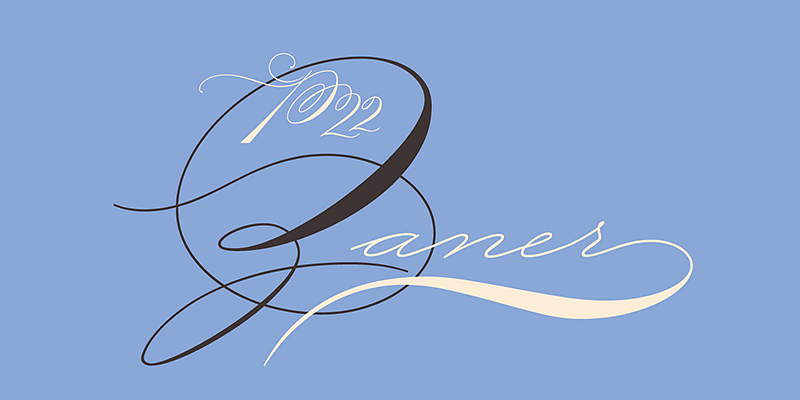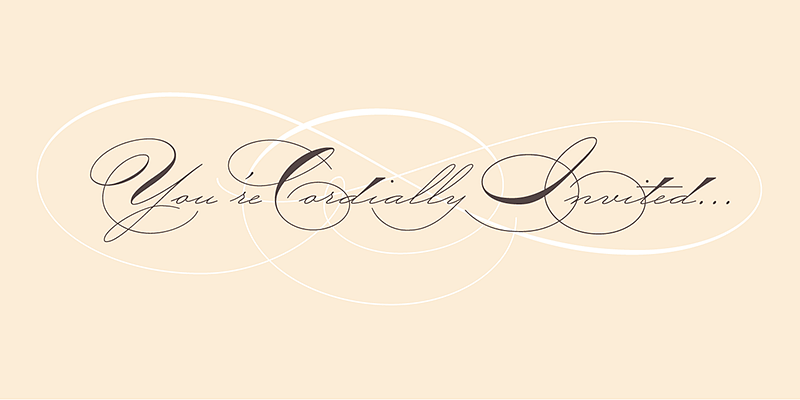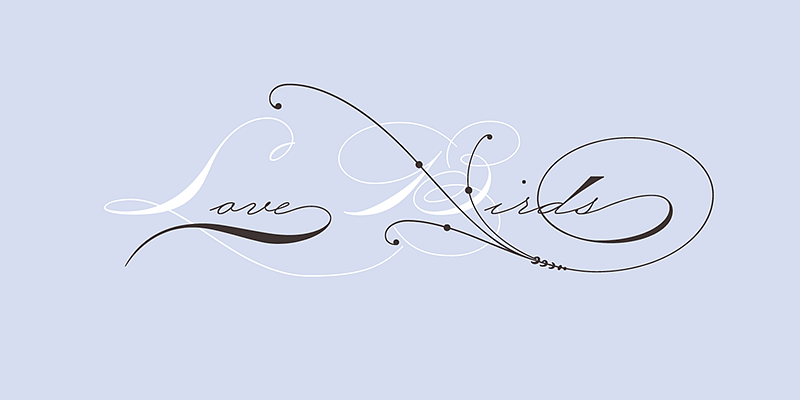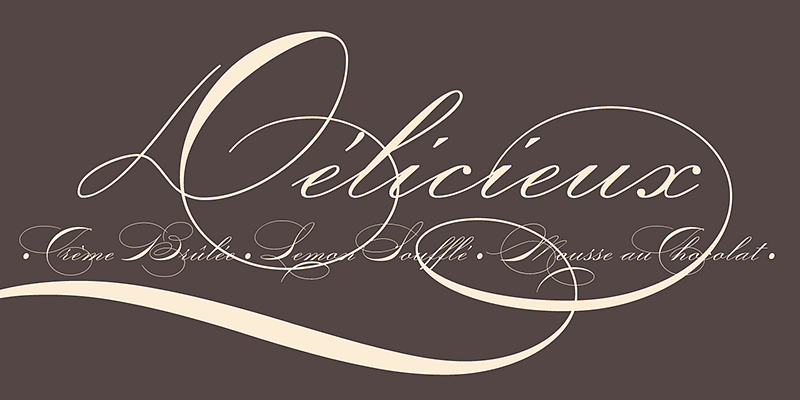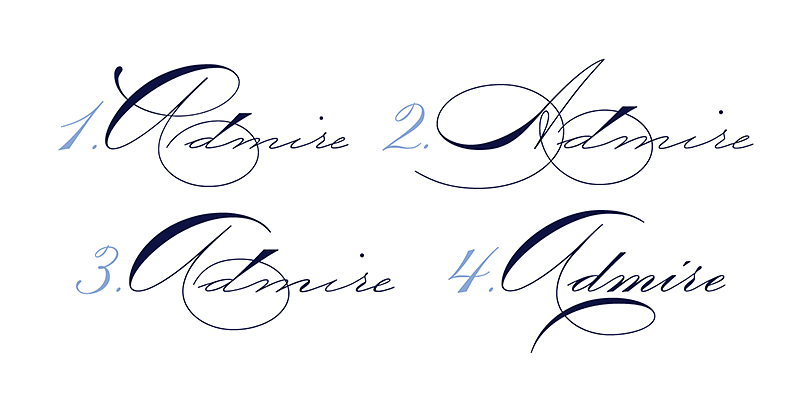
P22 Zaner is based on ornamental penmanship from the the turn of the 20th century. Zaner is perfect for wedding invitations and documents that require a touch of elegance.